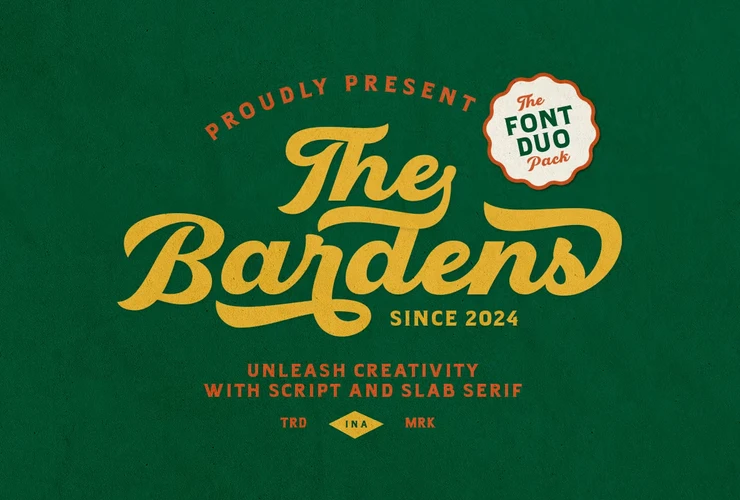
Introducing Bardens: The Retro Font Duo by BaleType
Bardens is a captivating retro font duo created by BaleType that features both a stylish script and a bold slab serif. This combination is perfect for those seeking to infuse their designs with a nostalgic and vintage aesthetic. The flowing, decorative script font pairs seamlessly with the sturdy, geometric slab serif, providing a visually appealing contrast that enhances various design projects.
Key Features of Bardens
Bardens Retro Font Duo stands out with its unique blend of styles, making it suitable for a wide range of applications:
Dual Fonts: Includes both a script font with fluid strokes and decorative elements, and a slab serif font with geometric shapes and uniform stroke widths.
Versatile Design: Perfect for creating headlines, logos, branding materials, packaging, advertising, and print materials that evoke retro and vintage vibes.
Multilingual Support: Bardens supports multiple languages, making it accessible for a global audience.
Ideal Uses for Bardens
Bardens is designed to add a touch of nostalgia and vintage charm to various design projects. Here are some ideas on how to use this retro font duo effectively:
Branding: Develop unique branding materials that stand out with a retro feel.
Packaging: Create eye-catching packaging designs that draw on vintage aesthetics.
Advertising: Design impactful advertisements that capture the essence of nostalgia.
Print Materials: Enhance posters, flyers, and other print materials with a stylish, retro look.
Sports Logos: Perfect for creating logos for baseball, football, and other sports teams.
Included in the Package
Bardens Script: A stylish script font with fluid strokes and decorative elements.
Bardens Serif: A bold slab serif font with geometric shapes and uniform stroke widths.
Why Choose Bardens?
The Bardens Retro Font Duo offers a perfect blend of style and functionality, making it a versatile choice for designers looking to create projects with a vintage touch. Whether you’re working on branding, packaging, advertising, or any other creative endeavor, Bardens provides the tools to make your designs stand out.